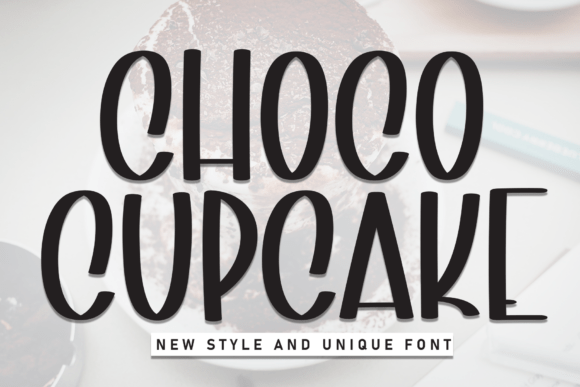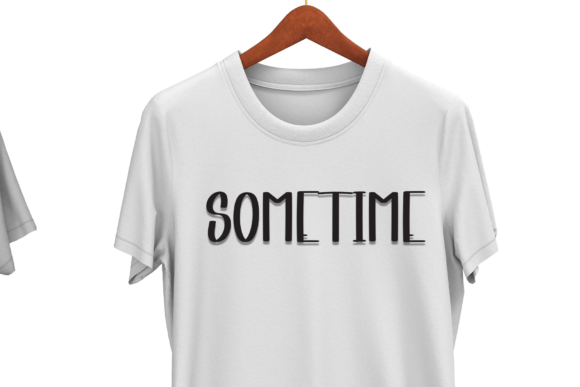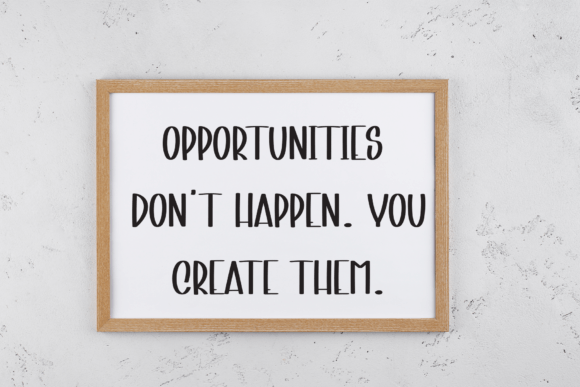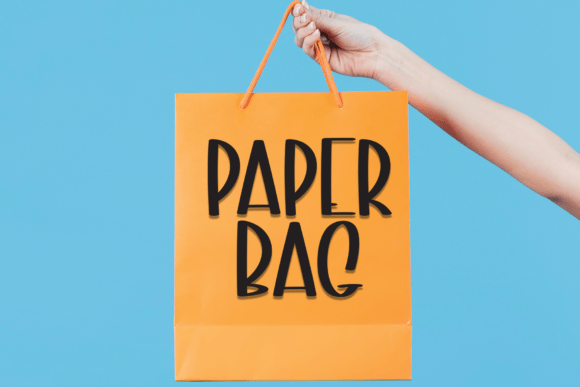
Choco Cupcake Font
About the Choco Cupcake Font
Discover the charm of Choco Cupcake Font. This font is a perfect blend of modern aesthetics and classic appeal. This display handwritten font bursts with personality and charm, capturing the warmth of real handwriting with bold, eye-catching strokes. Designed to stand out while maintaining a natural flow, it’s perfect for logos, social media graphics, posters, and anything that calls for a personal, expressive touch. Whether you’re crafting a heartfelt quote or branding a creative product, this font brings authenticity and flair to your design.
Choco Cupcake Font Usage Examples
Choco Cupcake Font Example